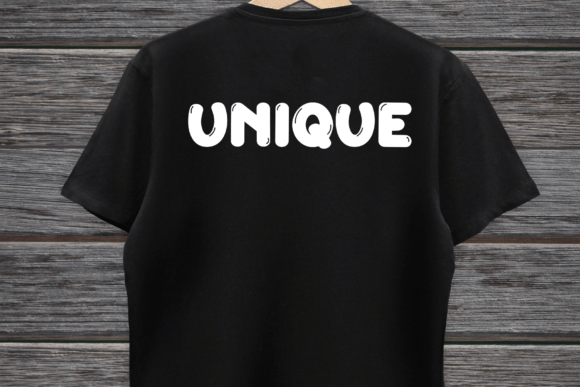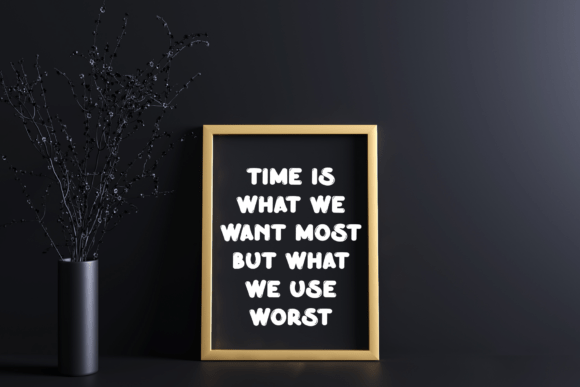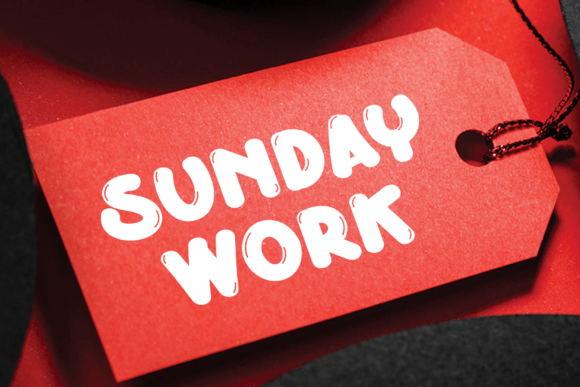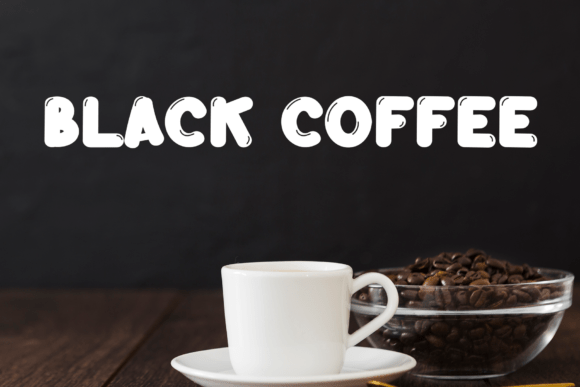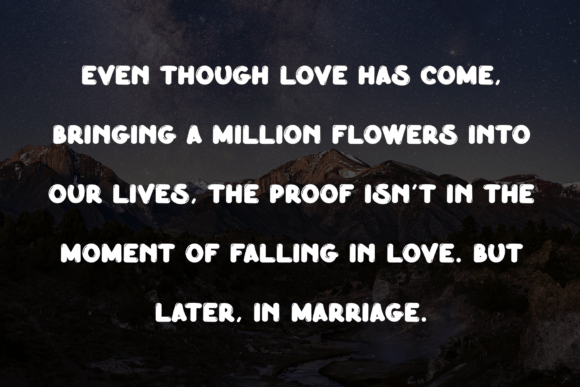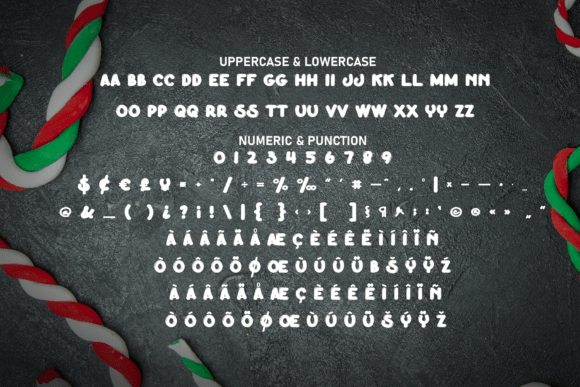
Candy Christmas Font: A Sweet Treat for Your Holiday Designs
Are you looking for a font that captures the playful and festive spirit of the holiday season? Look no further than the Candy Christmas font! This high-impact and warm display font is perfect for adding a touch of sweetness to your holiday designs, from festive branding to children’s packaging and social media headers.
The Unique Characteristics of Candy Christmas Font
So, what sets Candy Christmas font apart from other holiday fonts? The answer lies in its defining characteristic: high-contrast white reflective accents within each stroke. This gives the characters a glossy, three-dimensional “candy-coated” appearance that’s sure to grab attention. The font’s playful, “bubbly” organic personality makes it a standout choice for designers and crafters looking to add some fun and whimsy to their holiday designs.
Perfect for Festive Holiday Branding
Candy Christmas font is an excellent choice for festive holiday branding, including logos, gift tags, and product labels. Its unique candy-coated appearance gives your brand a fun and playful personality that’s sure to resonate with customers. Whether you’re designing for a holiday market, a festive food product, or a seasonal service, this font is sure to make your brand stand out.
Delightful for Children’s Confectionery Packaging
Kids love candy, and the Candy Christmas font is sure to delight children of all ages! Its colorful, playful appearance makes it a perfect fit for children’s confectionery packaging, including candy wrappers, labels, and gift boxes. This font is sure to add a touch of magic to your holiday treats and make them a hit with kids.
Vibrant Seasonal Posters and Social Media Headers
Candy Christmas font is also an excellent choice for creating vibrant seasonal posters and social media headers. Its high-impact appearance is sure to grab attention and make your message stand out. Whether you’re promoting a holiday event, a seasonal sale, or a festive product, this font is sure to help you get noticed.
Tips for Using Candy Christmas Font
Here are a few tips for getting the most out of Candy Christmas font:
- Use it in large sizes to maximize its impact and make it stand out.
- Experiment with different colors to match your brand or design scheme.
- Pair it with complementary fonts to create a unique and eye-catching combination.
- Don’t be afraid to get creative and add your own festive flair with graphics and illustrations!
Candy Christmas font is a sweet treat for designers and crafters looking to add some festive fun to their holiday designs. Its unique candy-coated appearance, playful personality, and high-impact style make it a standout choice for festive branding, children’s packaging, seasonal posters, and social media headers. With these tips and ideas, you’ll be well on your way to creating holiday designs that are sure to delight and inspire!